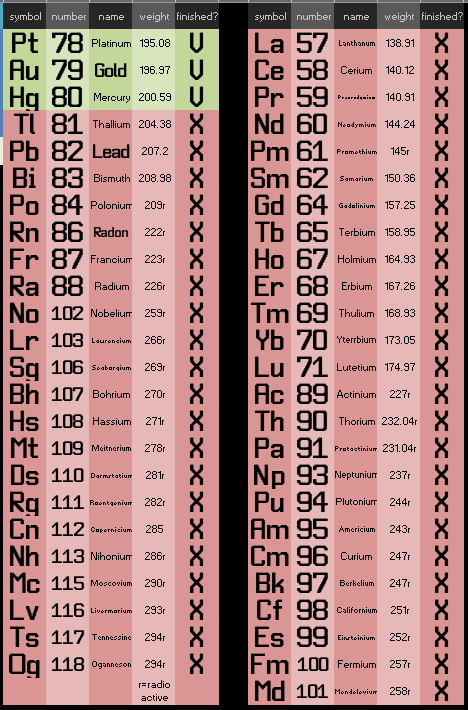
current table
update v1.0 (3·III·26): added platinum, gold and mercury
Pt is Platinum, not Silver.
This project is an example of insufficient consideration of complexity. The creator(s) should have started with the longest names and numbers in mind. Now, it looks like a mess with different sizes and some names in condensed letters. The atomic number should be at the top. The atomic weight is less important; it could be in smaller print at the bottom.
Since it is a clone, you have the liberty to change things as you wish. I would add another line at the bottom: one for the name and one for the weight.
The pixel font for the names looks like a cheap version of early mobile phone typography: no descenders, no kerning. We have better options now, don't we?
Hello everyone, those who created this font might not understand when I ask: why did you create it? Periodic tables of the chemical elements are plentiful and far more detailed than this attempt. How can you use yours? As @Frodo7 rightly pointed out, it's quite chaotic, like wasting energy on things that are barely useful (aside from personal satisfaction, of course), IMHO.
@Frodo & @elmoyenique I agree. The Oganesson (the highest atomic number on the periodic table, beacause the atomic number is 118). The location is Period 7, Group 18. And the lowest is the Hydrogen, with just 1. It is located in the top left corner, heading Group 1 (alkali metals, although it is a non-metal) and Period 1. But also we can put the atomic weight as last letters in the fontstruction. I going make one with the some more information and of Frodo7, we can also add more numbers from the periodic table; they are insufficient.
--> the numbers aren't that of a problem. i may change the pixel font tho
--> tell that to Kiên Trung, i'm just finishing his font cuz i don't like incompleteness (which is personal satisfaction IF i'm the only one that hates incompleteness)
--> we cannot detach the atomic weights from the characters
--> "we can also add more numbers from the periodic table; they are insufficient." what does that mean??????
Mean that are some numbers of the table like Radio that isn't have this font. This info of the radio is: Radium (Ra) is a metallic chemical element, extremely radioactive, with atomic number 88 and located in Group 2 (alkaline earth metals) of the periodic table. Discovered by Marie and Pierre Curie in 1898, it is silvery-white, oxidizes rapidly in air, and is primarily used in nuclear medicine for cancer treatments. Anyways, you should see the periodic table and see what numbers there isn't here.
update v1.1 (5·III·26): added thallium and lead
1/9 of the way there!!!
update v.1.1.1 (27·III·26): added lutetium